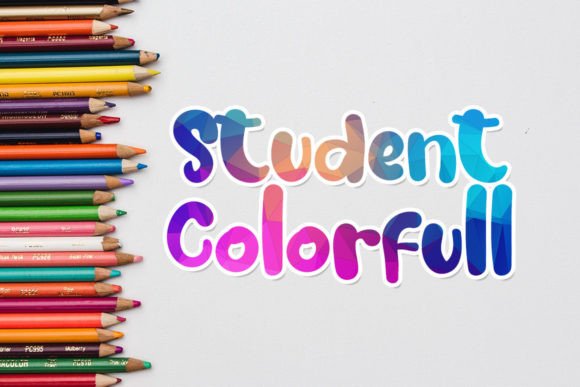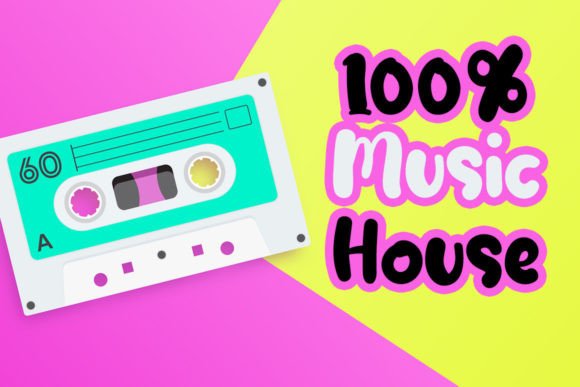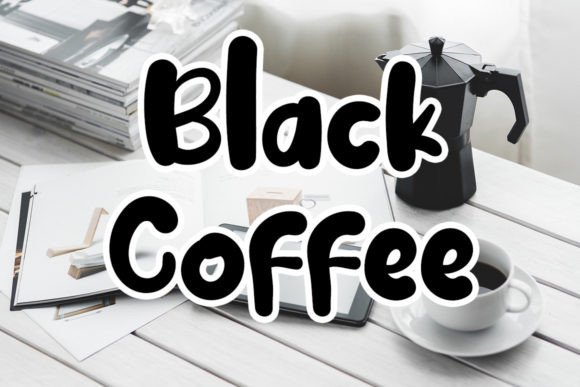
Introducing Black Fridays Font: The Ultimate Handwritten Display Font for Creative Projects
Are you tired of using the same old fonts for your creative projects? Look no further! Black Fridays Font is a fun and friendly handwritten display font that’s sure to take your designs to the next level. Masterfully designed to become a true favorite, this font has the potential to bring each of your creative ideas to the highest level!
What Makes Black Fridays Font So Special?
Black Fridays Font is a unique and stylish handwritten display font that’s perfect for a variety of creative projects, from crafting and DIY tutorials to branding and advertising materials. Its friendly and approachable vibe makes it an excellent choice for designers and crafters who want to add a personal touch to their work.
One of the standout features of Black Fridays Font is its versatility. Whether you’re creating a blog post, social media graphic, or promotional material, this font is sure to make your text stand out. Its bold and playful style is perfect for headlines, titles, and short phrases, while its clear and legible design ensures that your message gets across.
Key Features of Black Fridays Font
- Handwritten display font: Black Fridays Font is a carefully crafted handwritten font that’s designed to add a personal touch to your creative projects.
- Fun and friendly vibe: This font has a playful and approachable style that’s perfect for designers and crafters who want to add a bit of personality to their work.
- Versatile and adaptable: Black Fridays Font is suitable for a wide range of creative projects, from crafting and DIY tutorials to branding and advertising materials.
- Bold and playful style: This font is perfect for headlines, titles, and short phrases, and its clear and legible design ensures that your message gets across.
How to Use Black Fridays Font in Your Creative Projects
Black Fridays Font is incredibly easy to use, even if you’re not a seasoned designer. Here are a few ways you can incorporate this amazing font into your creative projects:
- Crafting and DIY tutorials: Add a personal touch to your crafting and DIY tutorials with Black Fridays Font. Use it to create eye-catching headlines, titles, and labels that will make your projects stand out.
- Branding and advertising materials: Use Black Fridays Font to create unique and stylish branding and advertising materials, such as business cards, brochures, and social media graphics.
- Blog posts and articles: Add a bit of personality to your blog posts and articles with Black Fridays Font. Use it to create eye-catching headlines and titles that will grab your readers’ attention.
Tips and Tricks for Getting the Most Out of Black Fridays Font
Here are a few tips and tricks to help you get the most out of Black Fridays Font:
- Experiment with different colors and textures: Black Fridays Font looks great in a variety of colors and textures. Experiment with different combinations to find the one that works best for your project.
- Use it sparingly: While Black Fridays Font is a beautiful font, it’s best used sparingly. Use it for headlines and titles, and a simpler font for body text.
- Pair it with other fonts: Black Fridays Font pairs well with a variety of other fonts. Experiment with different combinations to find the one that works best for your project.
Black Fridays Font is a fun and friendly handwritten display font that’s perfect for designers and crafters who want to add a personal touch to their creative projects. With its bold and playful style, versatile and adaptable design, and easy-to-use features, this font is sure to become a true favorite. So why wait? Download Black Fridays Font today and take your creative projects to the next level!